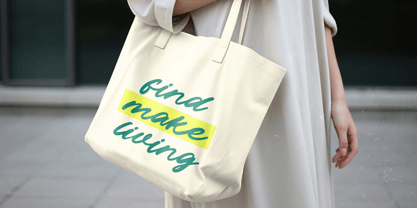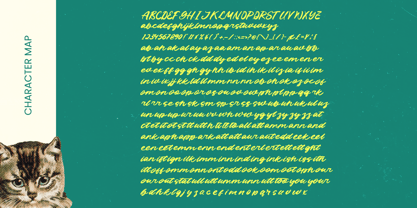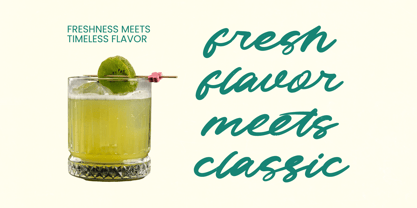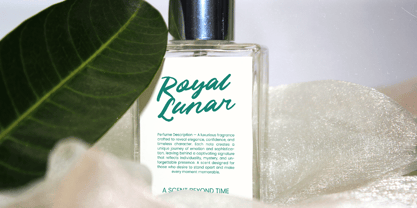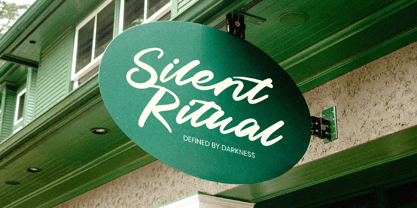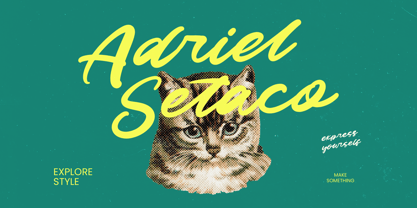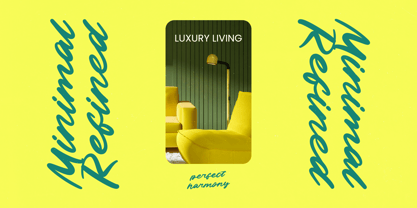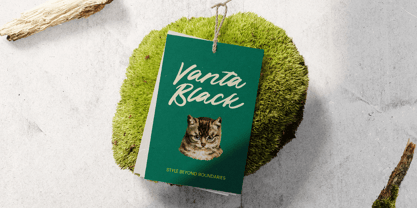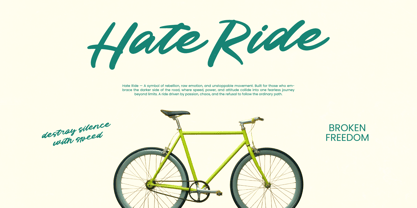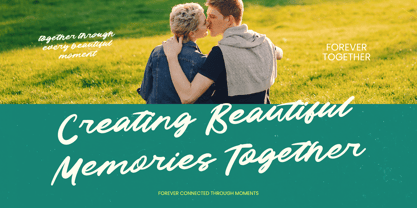
Adriel Setaco
Adriel Setaco - Bold Handwritten
Elevate your creative vision with a typeface that embodies raw energy and sophisticated artistry. Adriel Setaco - Bold Handwritten offers a dynamic aesthetic that captures attention through its fluid brushwork and organic flow. This typeface seamlessly blends the authenticity of hand-drawn calligraphy with a polished professional finish, providing a bold visual impact that is essential for contemporary graphic design.